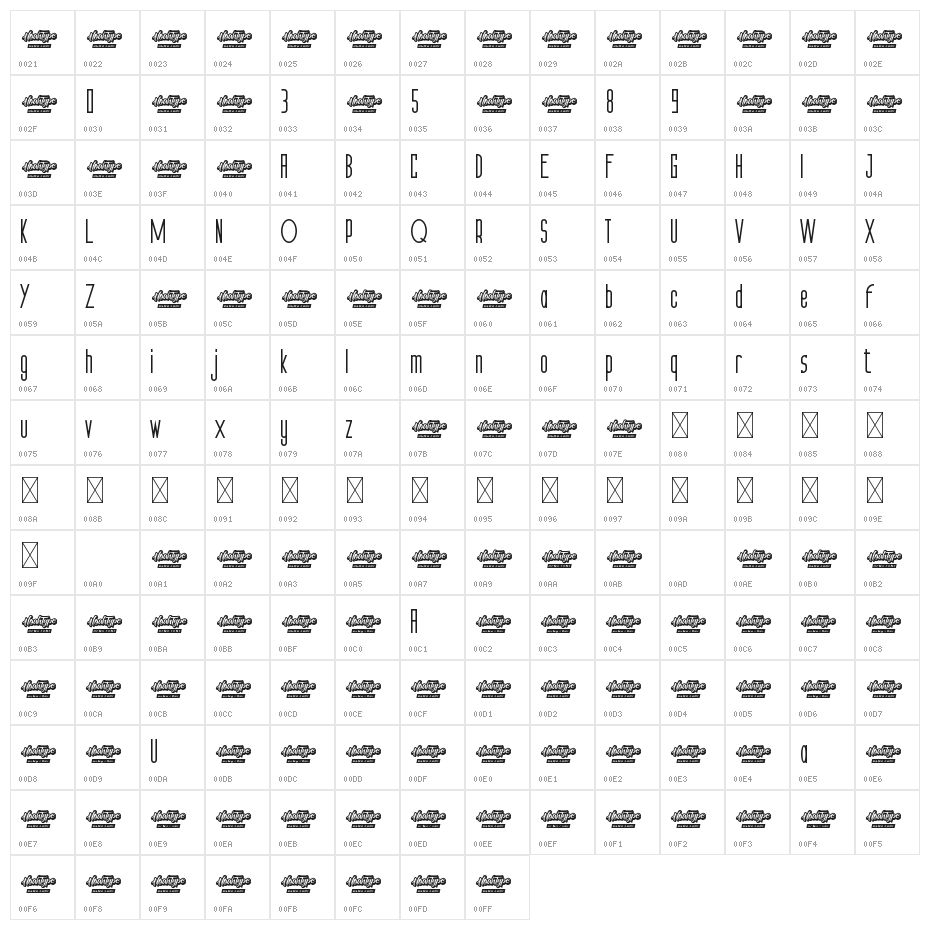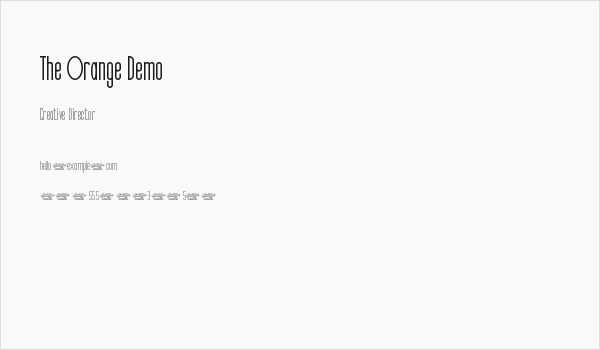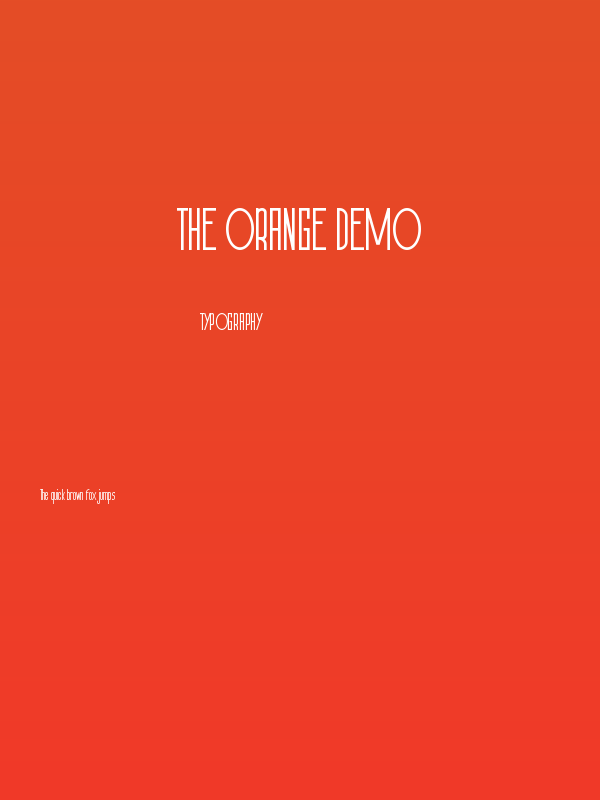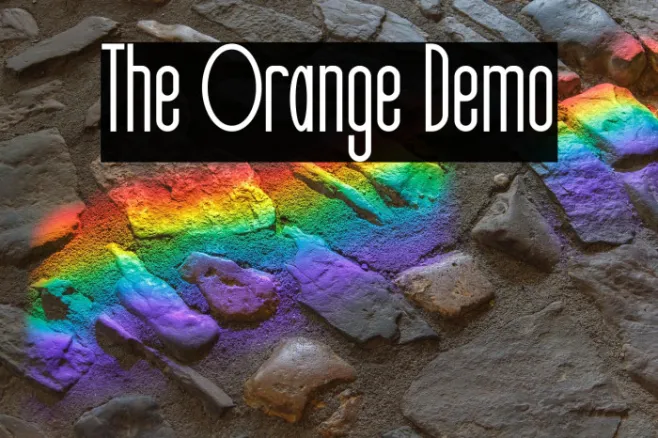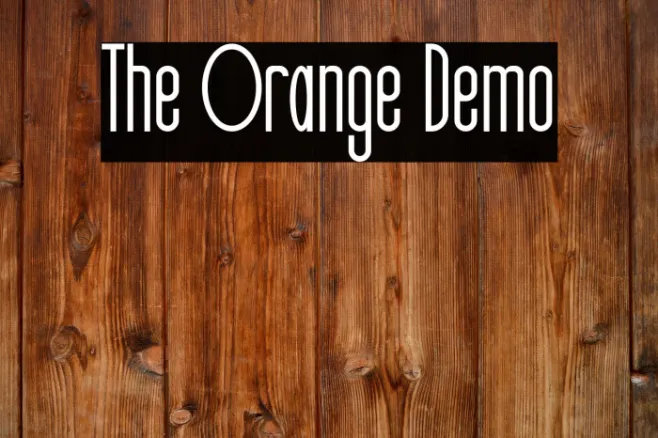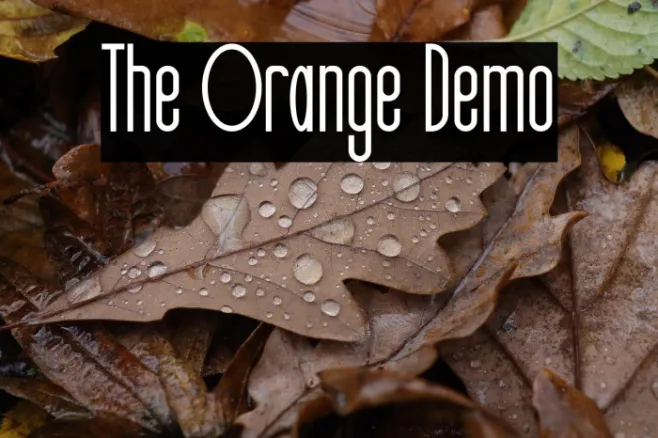
The Orange Demo Font
The Orange Demo Description
This font features a tall, narrow design with clean lines and a modern aesthetic. The uppercase letters are particularly elongated, giving the typeface a distinctive, elegant appearance. The lowercase letters maintain the same narrow structure, ensuring consistency throughout. The numbers are similarly styled, with a sleek, contemporary look. The special characters are designed to match the overall style, providing a cohesive feel. This font's unique design makes it suitable for a variety of creative applications.
| Proposed Projects | Ideal for branding, posters, and editorial design where a modern and stylish look is desired. |